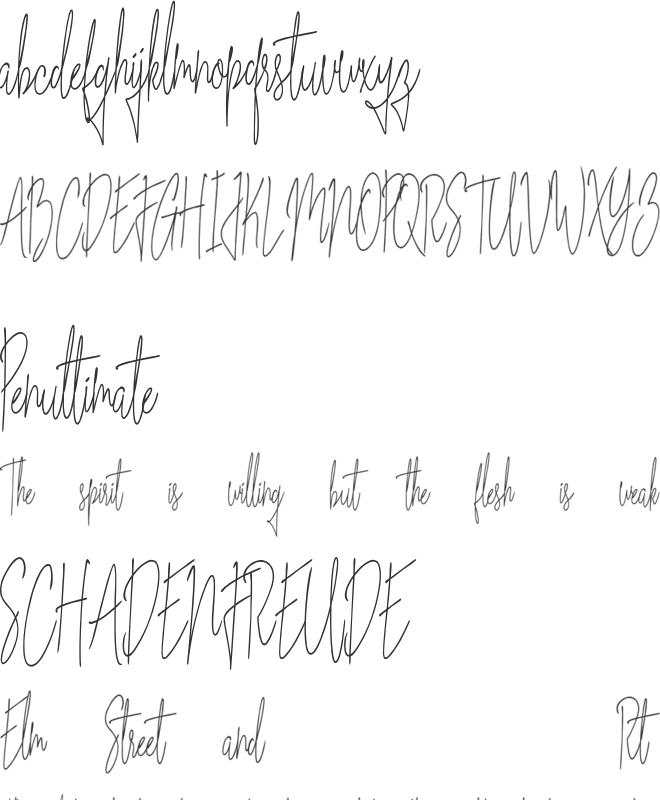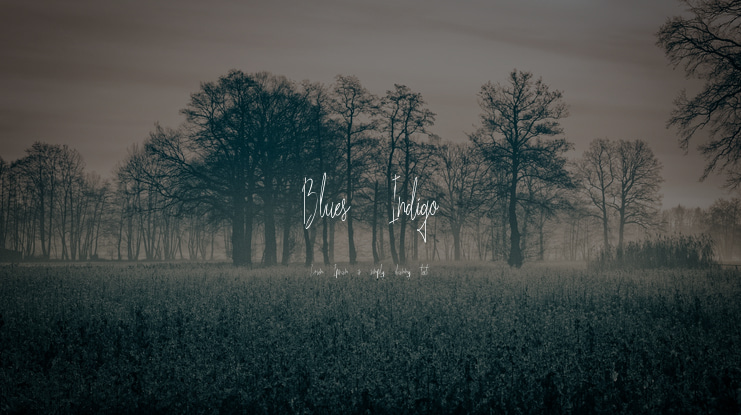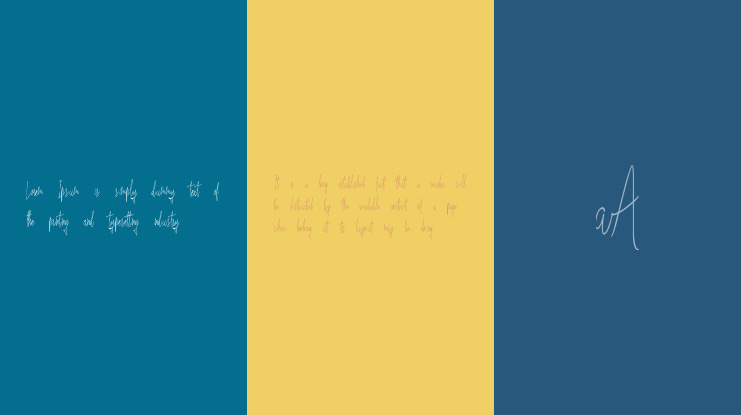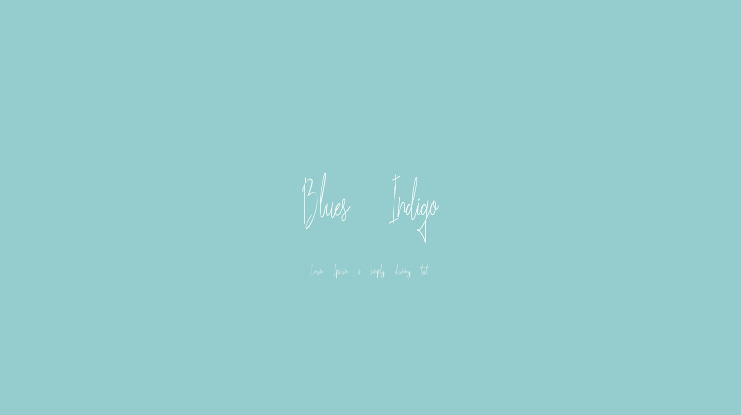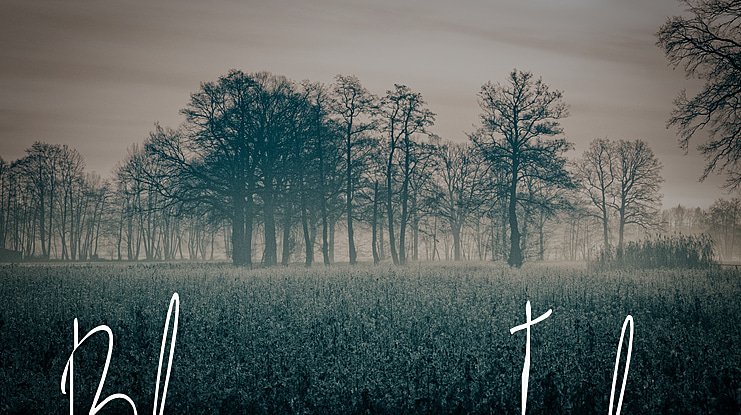
Blues Indigo Font
Blue Indigo font ! A fabulously fun yet elegant script font with tons of energy with signature style, allowing you to create beautiful hand-made typography in an instant.Blue Indigo font is guaranteed to make your text stand out - perfect for logos, printed quotes, invitations, cards, product packaging, headers and whatever your imagination holds.
What's really awesome is that Blue Indigo font comes with a complete set of lowercase alternates, ligatures, and swashes which allows you to create even more authentic custom-feel text.
Swashes ( underscore and number 1-5 ) Example : Bea_1uty